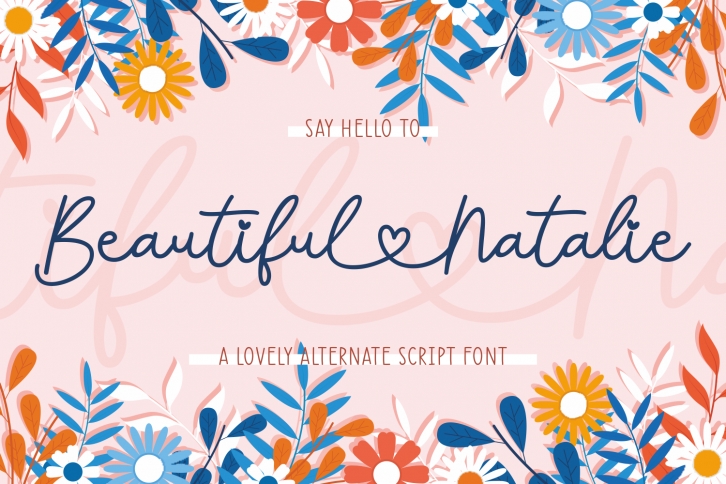
Beautiful Natalie is an elegant script font with a contemporary atmosphere and impeccable form, inspired by timeless classic calligraphy. This font is PUA encoded which means you can access all of the glyphs and swashes with ease!